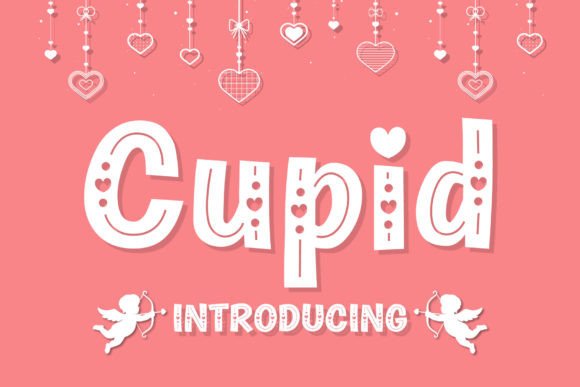
Are you looking for a font that will add a touch of cuteness, brightness, and fun to your designs? Look no further than Cupid Font, the perfect decorative font for all your pop art needs!
Created by Fox7, Cupid Font is the go-to choice for anyone looking to create stunning designs for Valentine's Day, Mother's Day, or any occasion that calls for a touch of romance and whimsy. With its unique, eye-catching style and bright, pastel colors, Cupid Font is sure to make your designs stand out and capture the attention of anyone who sees them.
Whether you're a professional graphic designer or just starting out, Cupid Font is the perfect tool to elevate your designs and take them to the next level. With its wide range of uses and versatility, this font is sure to become a staple in your design toolkit.
So why wait? Add Cupid Font to your collection today and start creating stunning pop art designs that will capture the hearts of your audience! With its captivating style and endless creative possibilities, this font is truly the best choice for anyone looking to create stunning designs that stand out from the crowd.